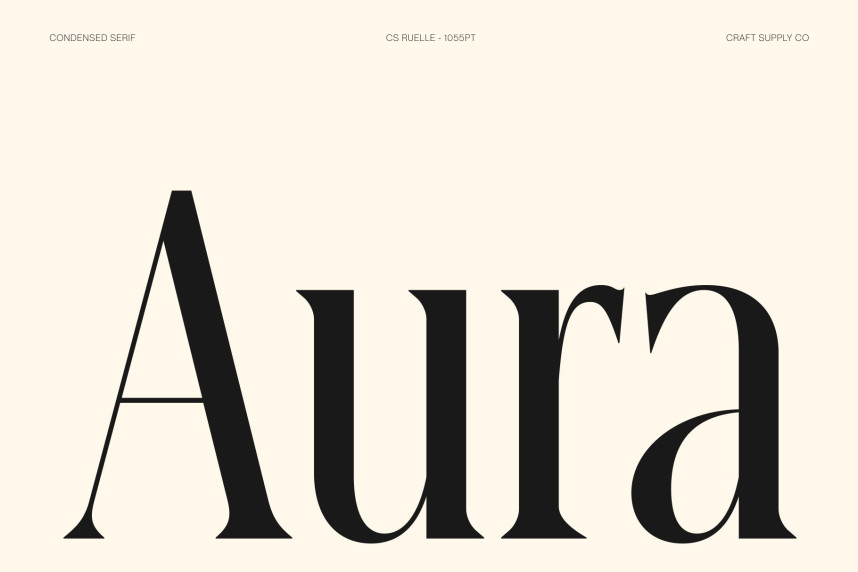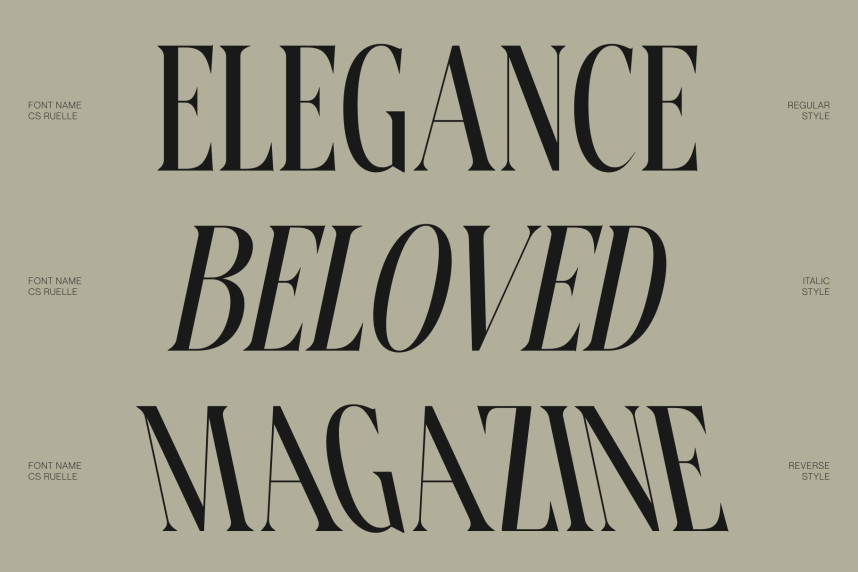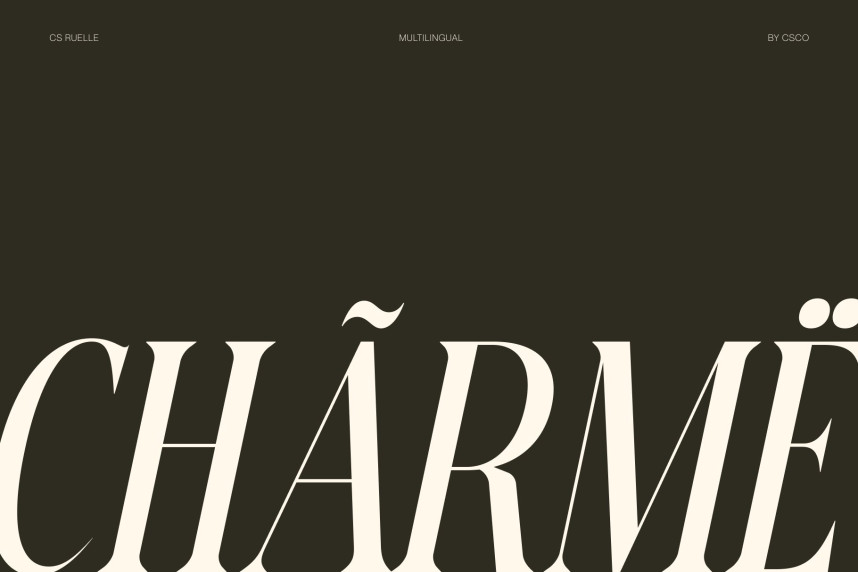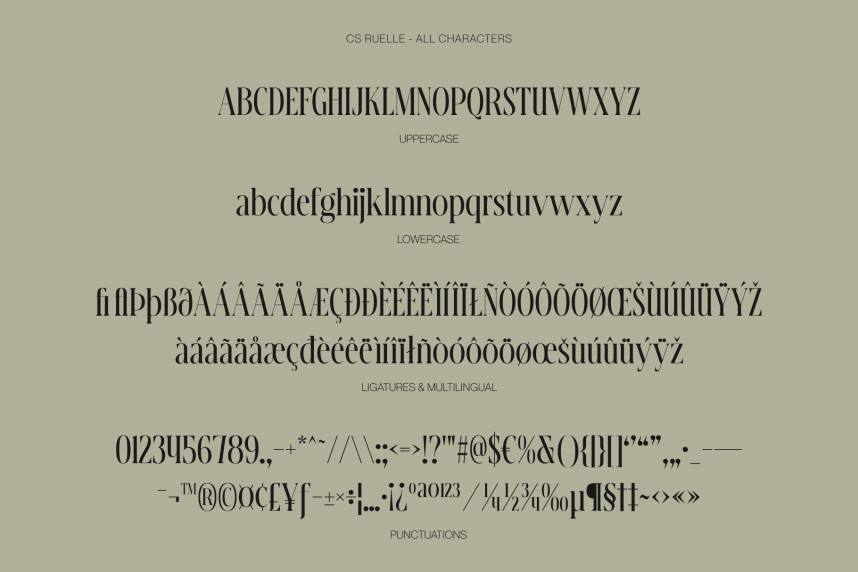
CS Ruelle Font
CS Ruelle Font – Condensed Serif Display Font: Where Timeless Elegance Meets Contemporary Luxury
Tall Letterforms with Refined Proportions
This is a condensed serif display font featuring elegant proportions, refined serifs, and a sophisticated contemporary style. Its tall, graceful letterforms create a striking vertical rhythm that conveys luxury and confidence while maximizing visual impact in space-conscious layouts. The balanced construction ensures every headline feels polished, stylish, and effortlessly refined.